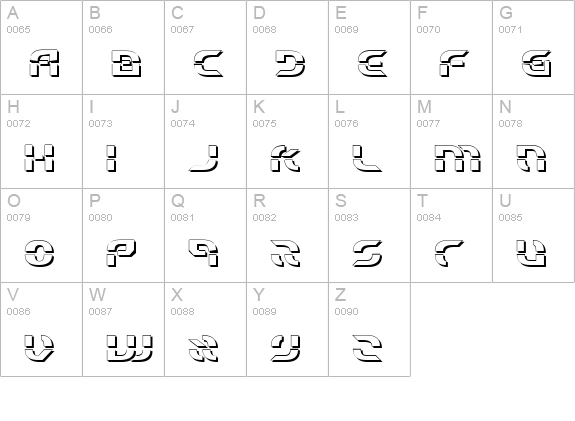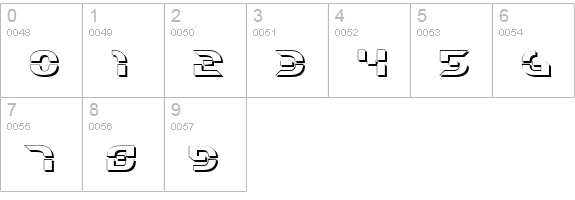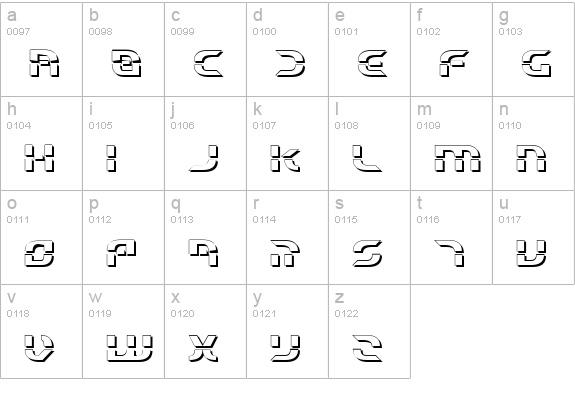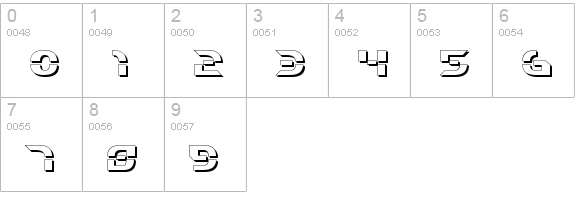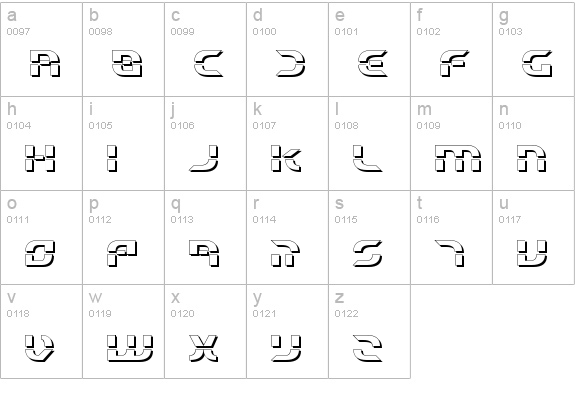
Introducing Starfighter Beta 3D font, a futuristic and dynamic typeface that will take your designs to the next level! This cutting-edge font features sharp edges and a 3D effect that gives it a truly out-of-this-world appearance. Perfect for projects that require a modern and high-tech aesthetic, Starfighter Beta 3D font will make your text pop and stand out from the crowd. Best of all, Starfighter Beta 3D font is completely free to download at FontsMarket.com! Whether you're working on a sci-fi poster, a video game project, or a tech-themed website, this font is sure to add a touch of futuristic flair to your designs. Don't miss out on the opportunity to elevate your work with this stunning and unique typeface. Download Starfighter Beta 3D font today and let your creativity take flight!